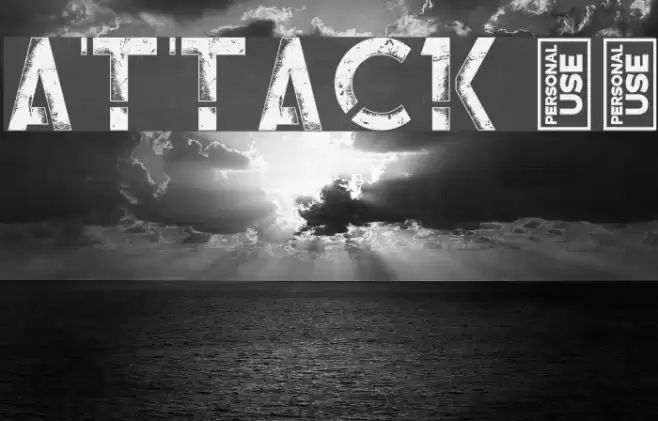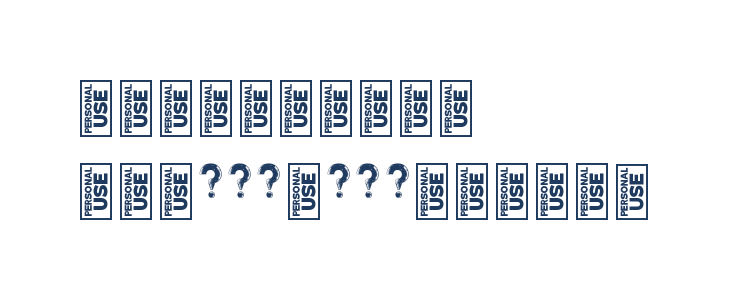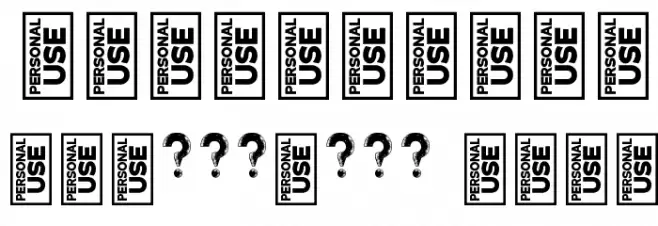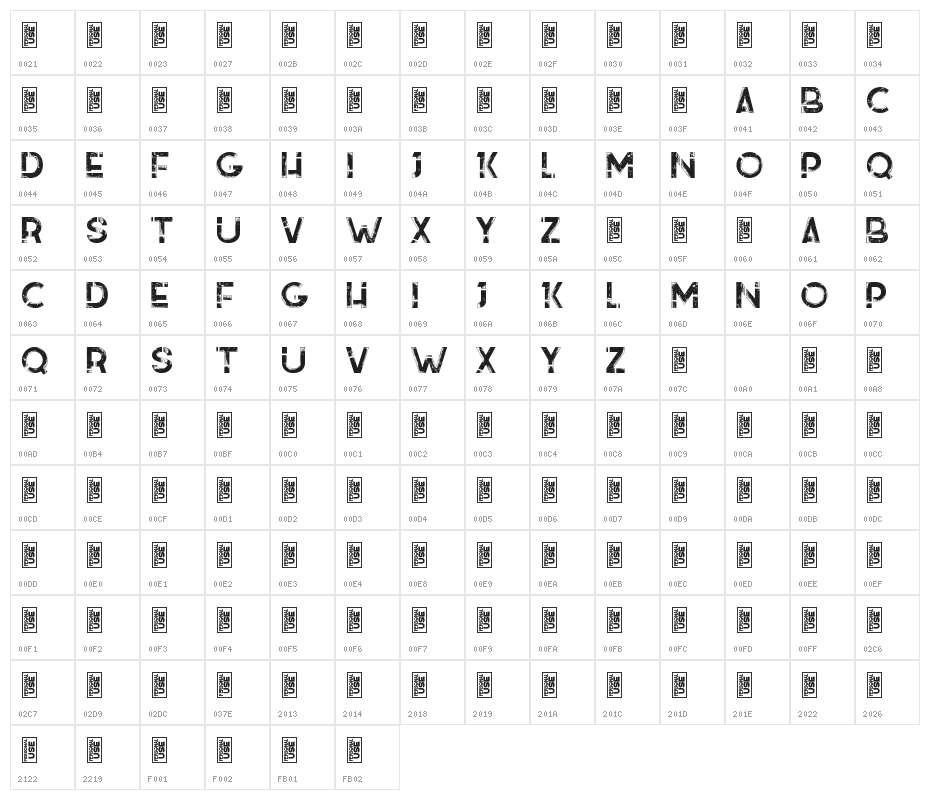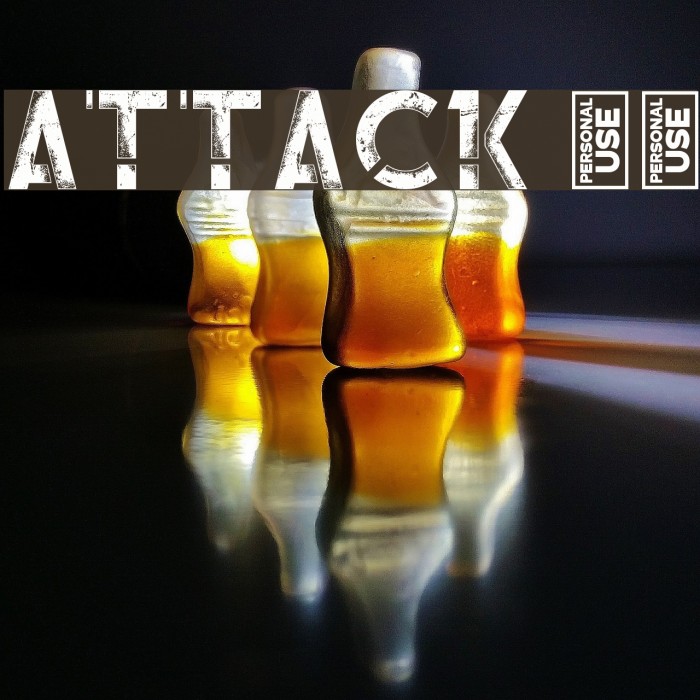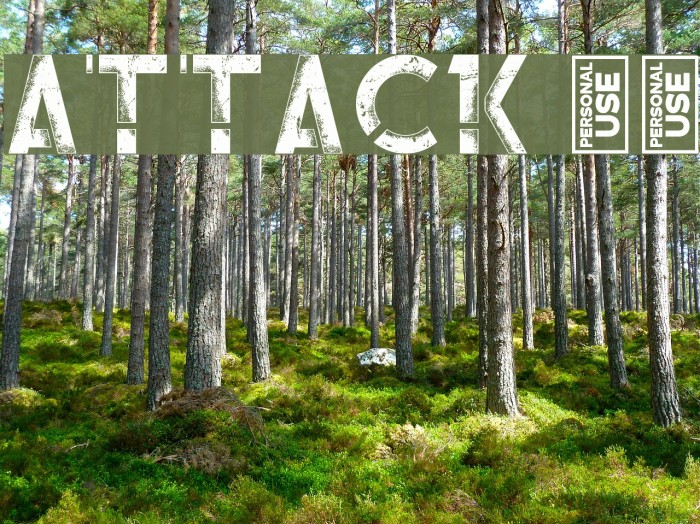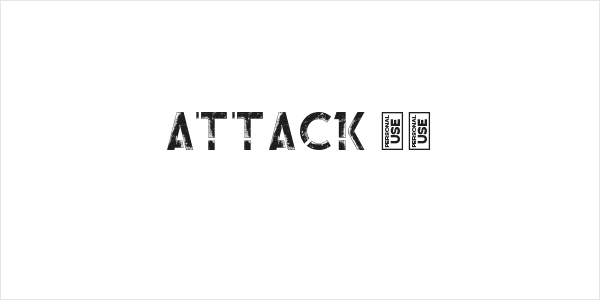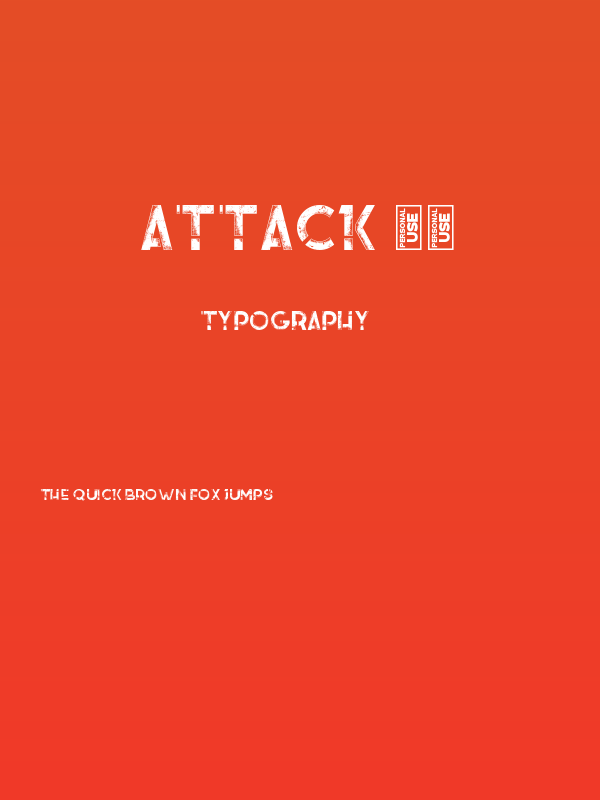
Attack 13 Font
Attack 13 Description
This font features a bold, distressed style with a rugged, textured appearance. Each letter is designed with a rough, worn-out effect, giving it a vintage and industrial feel. The uppercase letters are prominent and impactful, making them suitable for attention-grabbing headlines or titles. The font's unique texture adds character and depth, making it ideal for projects that require a gritty or edgy aesthetic. The overall design is consistent across all characters, maintaining a cohesive look.
A bold, distressed font with a rugged, textured appearance from Uncategorized fonts.
- Proposed Projects: Ideal for posters, album covers, branding for edgy products, or any design needing a vintage industrial look.
- Overall Style: Vintage, Industrial